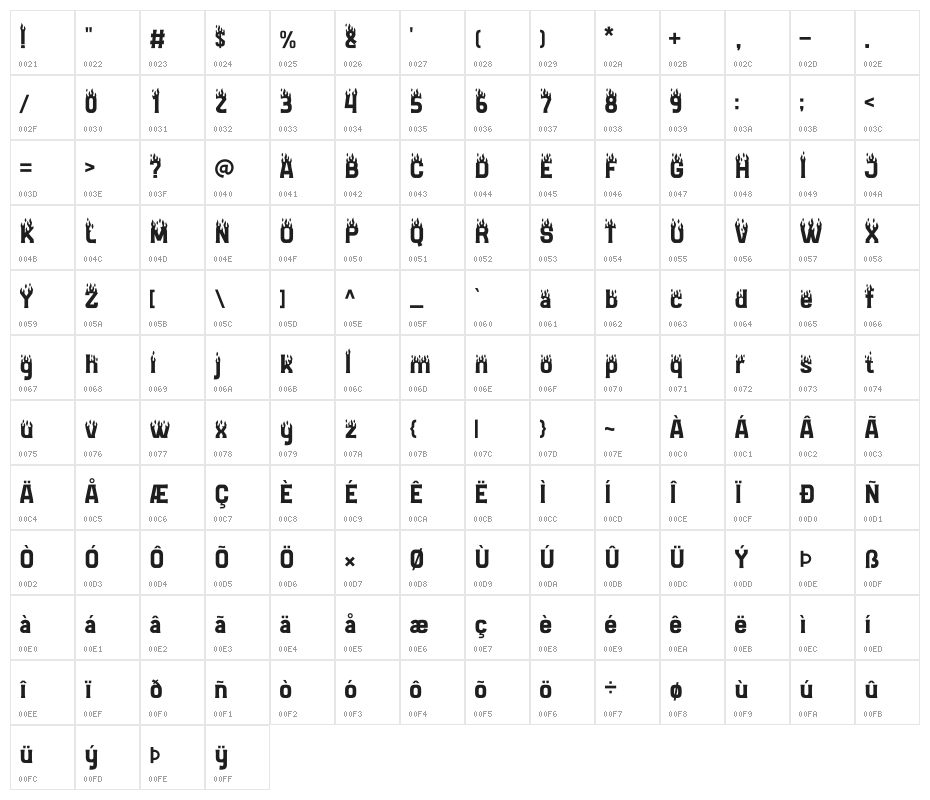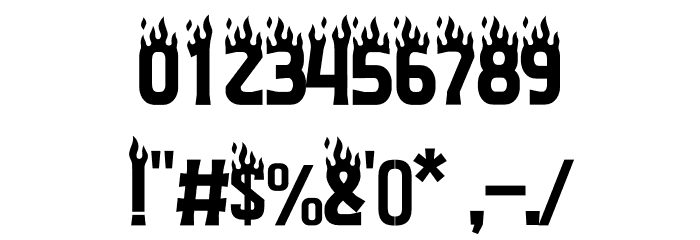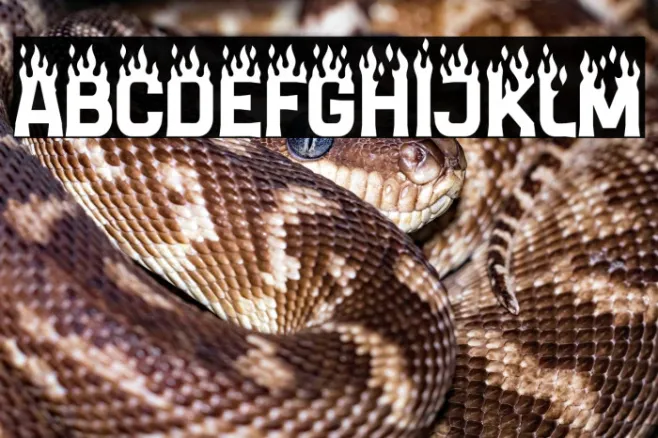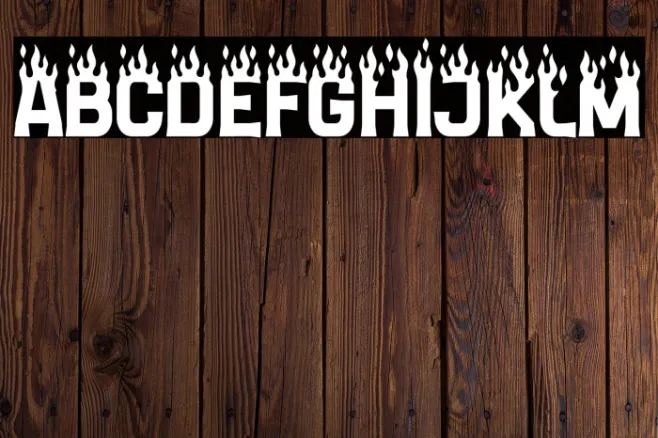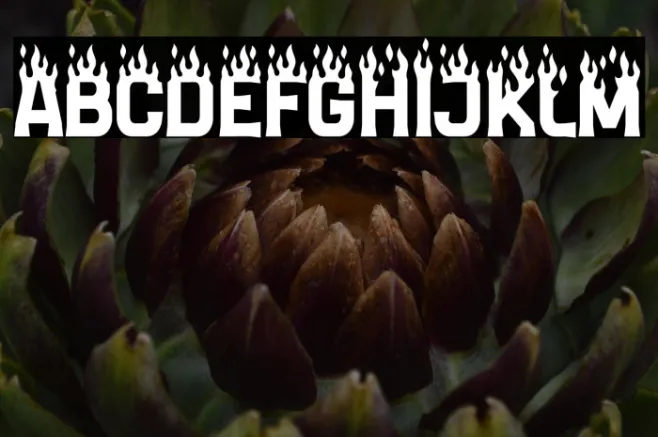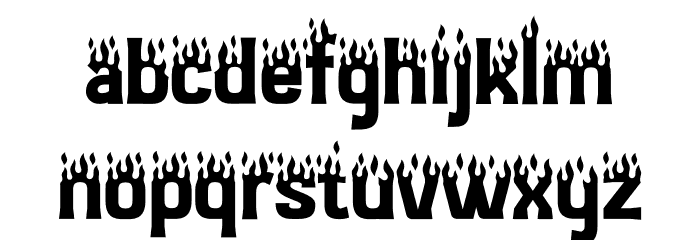
VAGUARD Font
VAGUARD Description
This font features a bold and striking design with a unique flame motif adorning the top of each character. The uppercase and lowercase letters, as well as numbers and special characters, are all embellished with this fiery detail, creating a sense of movement and intensity. The characters are robust and slightly condensed, giving them a powerful presence. The design is highly decorative, making it ideal for attention-grabbing headlines or thematic projects. The contrast in stroke thickness is medium, ensuring readability while maintaining its dramatic flair.
| Proposed Projects | Perfect for event posters, music album covers, themed party invitations, or any project requiring a bold, fiery aesthetic. |